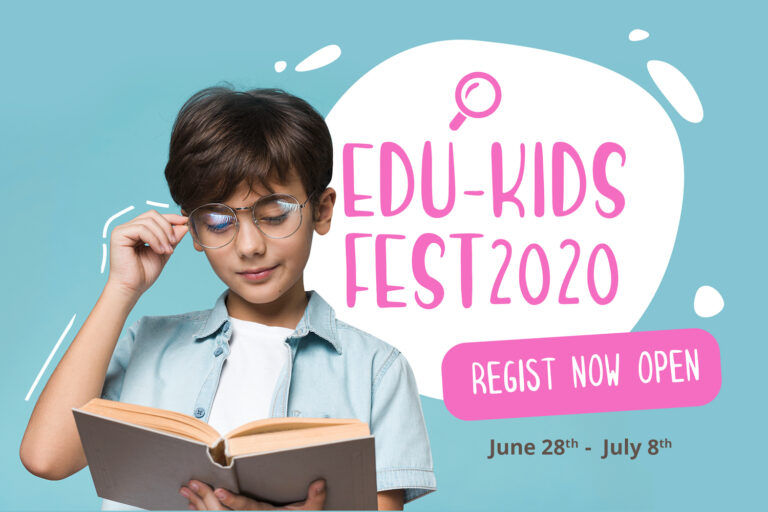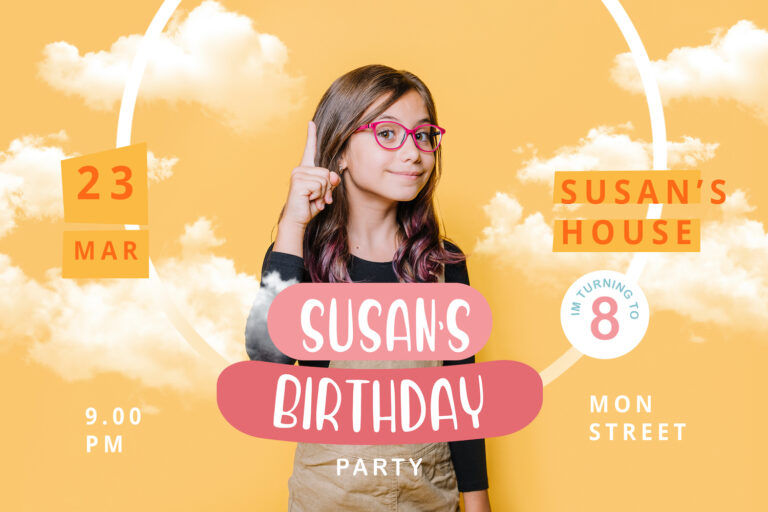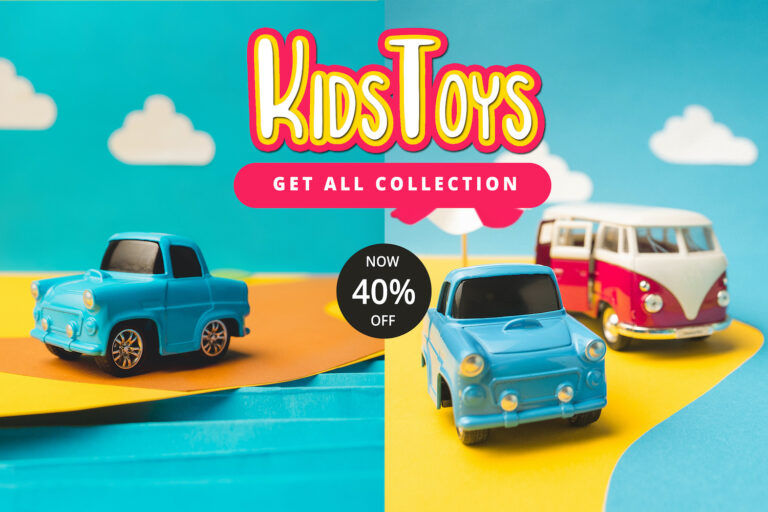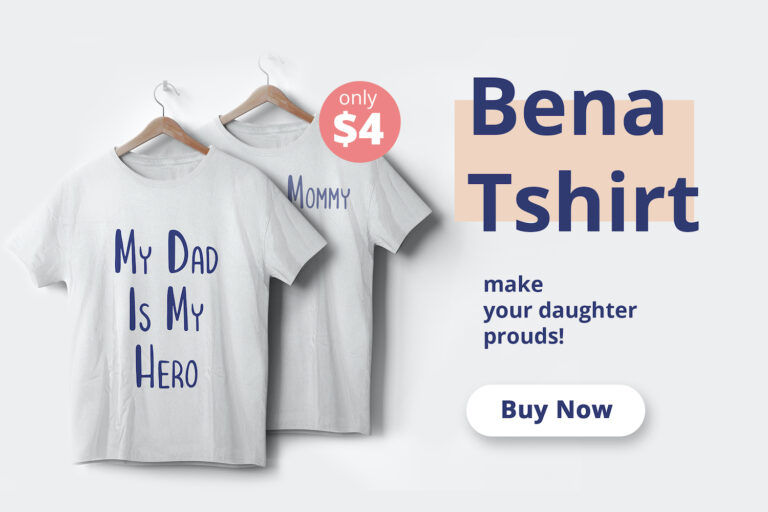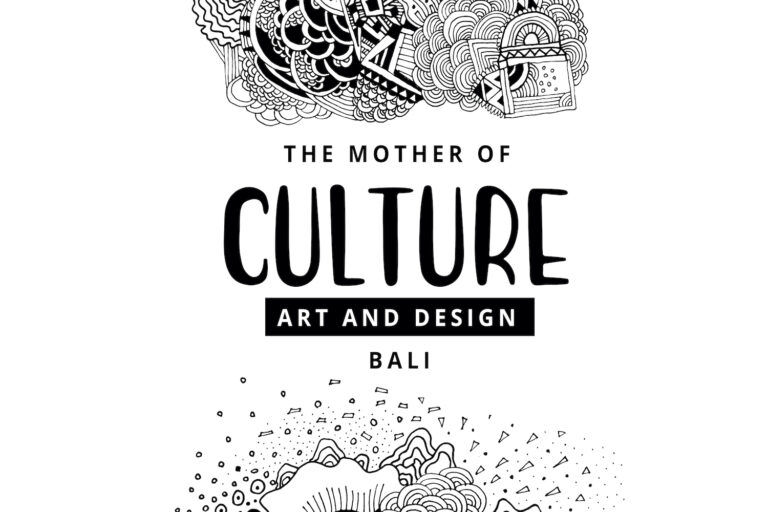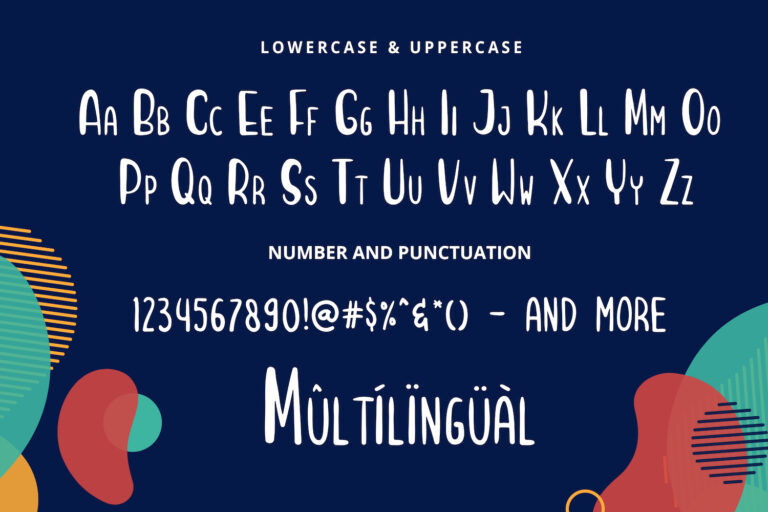
The Playkidos Playful Font is a lively display typeface that radiates happiness and innocence. With its tall, rounded letterforms and subtly uneven strokes, it mimics the natural charm of a child’s handwriting—perfectly imperfect in the best way. It’s easy to read yet full of energy, making it highly adaptable for projects that aim to feel cheerful, welcoming, and youthful.
Playkidos works beautifully in contexts where friendliness and accessibility matter. It’s an excellent choice for educational materials, kids’ books, birthday invitations, toy branding, daycare logos, parenting blogs, or any content geared toward children and families. The clean structure makes it functional even at smaller sizes, while its whimsical personality stands out in larger headlines or playful compositions. Whether you’re designing a product label or a back-to-school campaign, the Playkidos Playful Font brings a warm, bubbly tone that puts smiles on faces—young and old alike.